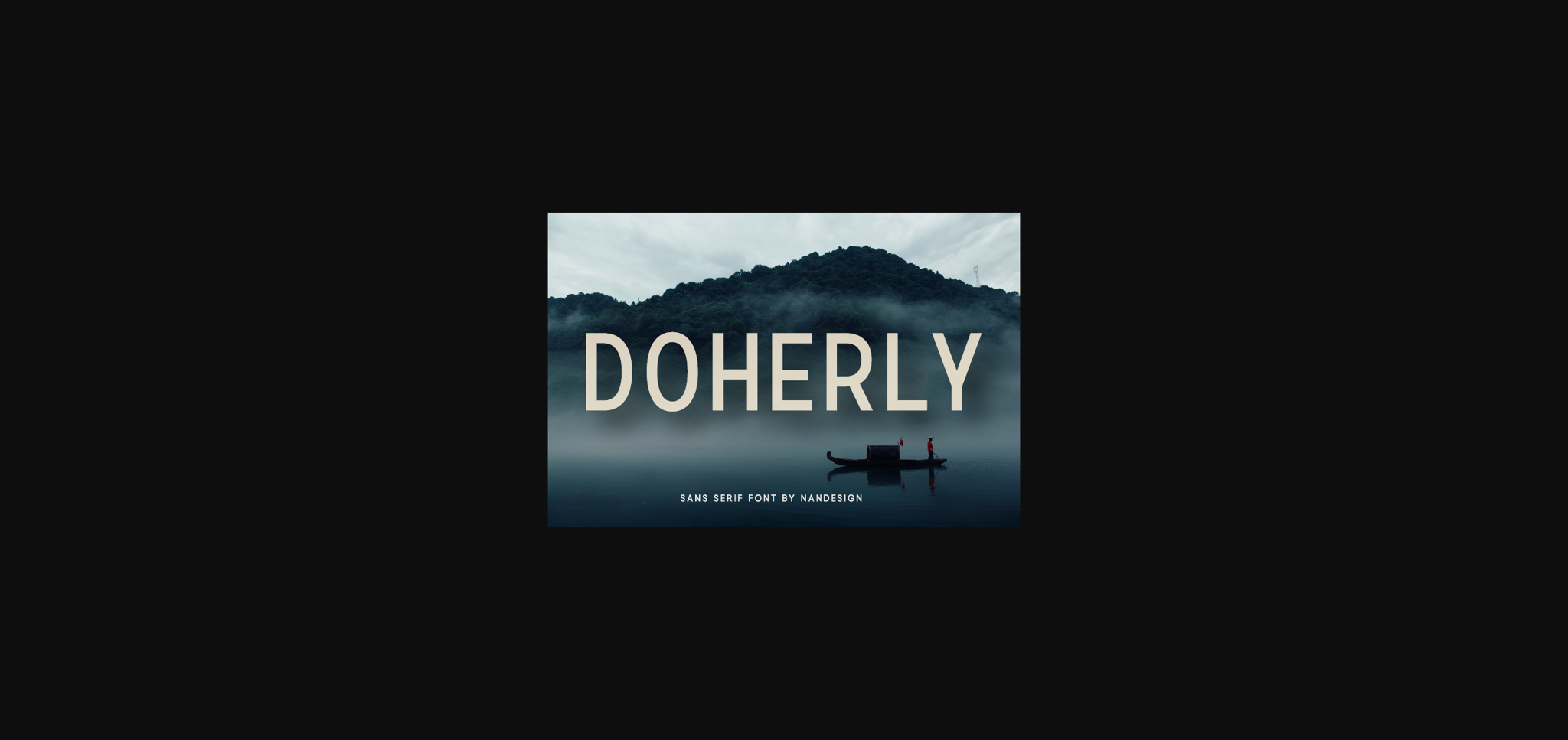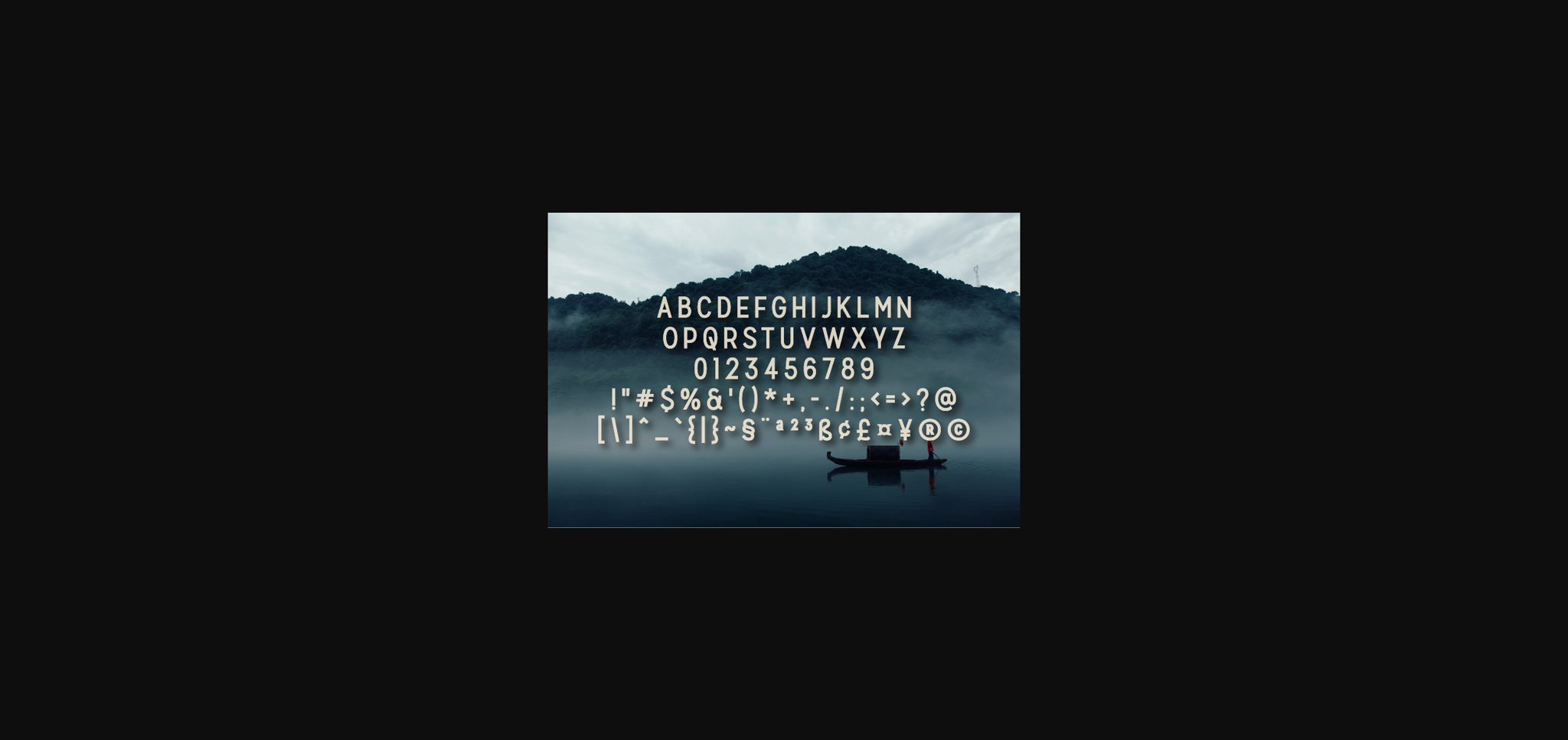
About Doherly Font
Doherly is a bold and neat lettered sans serif font. Suitable to a wide variety of designs , Doherly has the potential to become your favorite go-to font, no matter the occasion!